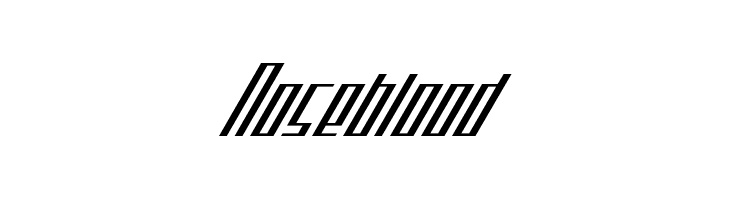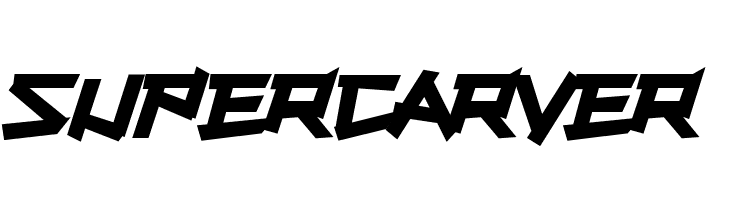
• Brandsom
A bold, eclectic font with characters styled like brand logos.
• Supercarver
A bold, angular font with a dynamic and energetic style.
• Noseblood
A bold, italicized font with sharp, angular edges and a futuristic look.
• Saveloy
A bold, rounded, and modern font with a playful geometric style.
• Viadukt
A bold, geometric font with a futuristic and dynamic style.
• Reflecques
A modern, geometric font with angular and dynamic characters.
• I Really Really Like Fonts
A bold, geometric font with a modern and industrial style.
• Blackboard Rovers
A bold, handwritten-style font with dynamic, brush-like strokes.
• Uncopyrightable
A bold, geometric font with angular shapes and a modern, futuristic style.
• Inky Thin Pixels
A pixelated, blocky font with a retro digital aesthetic.